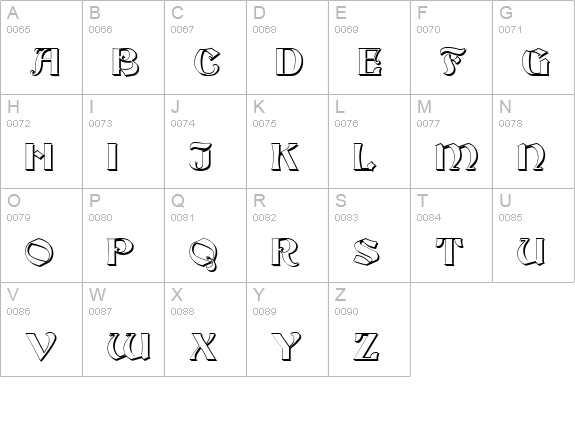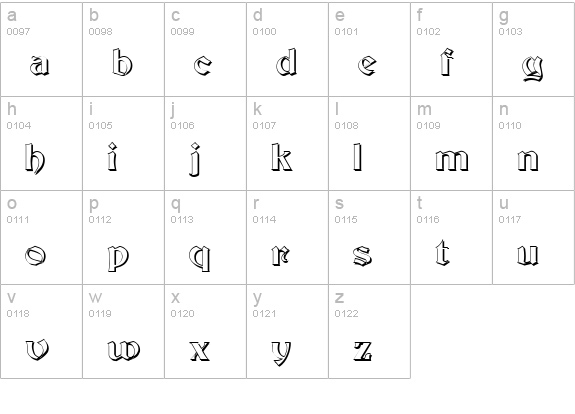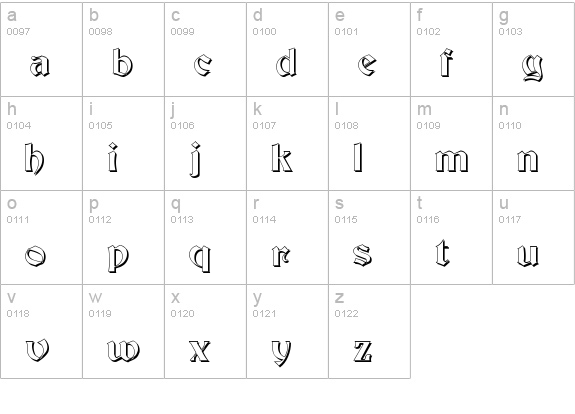
Fontainebleau Font Details
Fontainebleau is a beautifully crafted font that exudes elegance and sophistication. Its intricate details and classic design make it a timeless choice for any creative project. With its sleek lines and graceful curves, Fontainebleau is sure to make a statement and elevate the overall look of your designs. What sets Fontainebleau apart is not only its stunning appearance but also the fact that it is available for free download at FontsMarket.com. This means that you can easily access this exquisite font without any cost, making it a valuable addition to your font collection. Whether you're working on a branding project, a wedding invitation, or any other creative endeavor, Fontainebleau is the perfect choice to add a touch of sophistication and style. Download this free font today and let its timeless beauty inspire your next masterpiece.